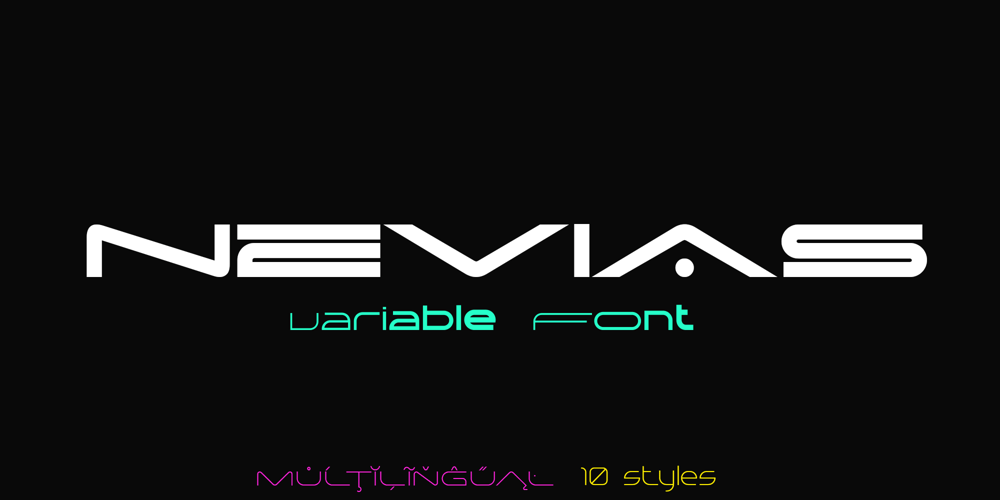
Nevias Tech
Nevias Tech font
Nevias Tech Font Family was designed by Dmytro Poliakh and published by Sentavio. Nevias Tech contains 11 styles and family package options. Nevias is Variable Font creates modern futuristic hi-tech atmosphere and style.Variable Controls are: Weight and Width.It is created basing on Font Family of 10 styles (Light, Bold, Condensed, Expanded etc.) which allows Nevia looks good as Headline and as Text both. Multilingual support (Latin Pro & Salvic Cyrillic).